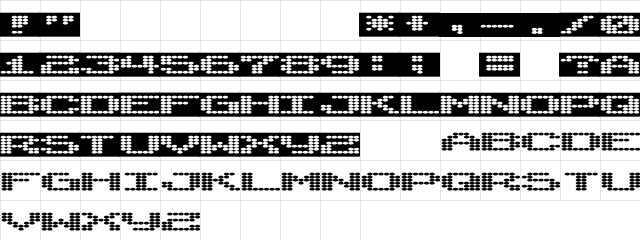
SyntheticSyncronism Regular
Design Context for SyntheticSyncronism Typeface
SyntheticSyncronism takes a measured approach to typography — its balanced proportions and neutral character make it a reliable workhorse for both digital and print work.